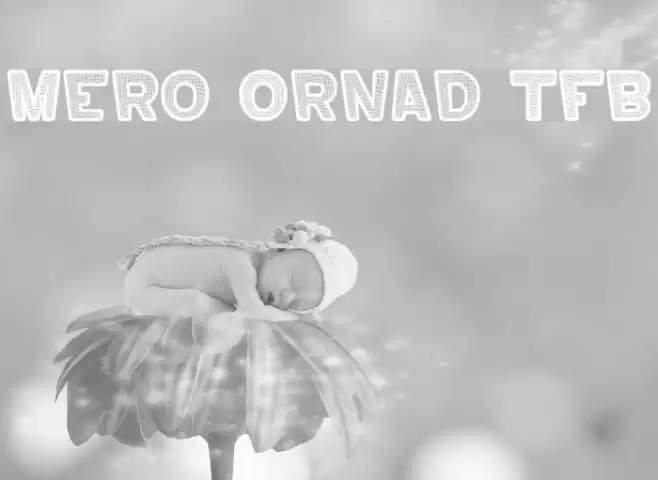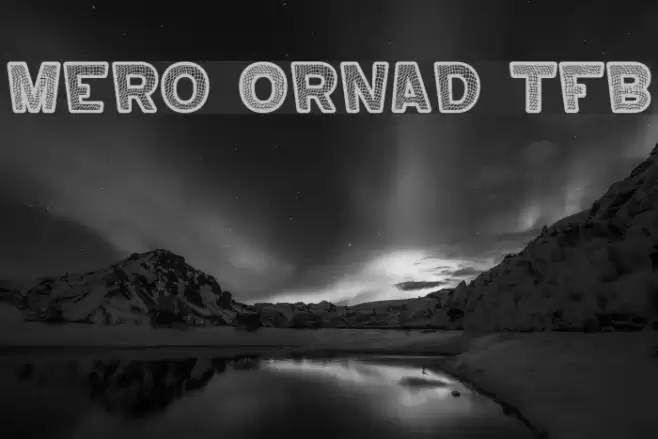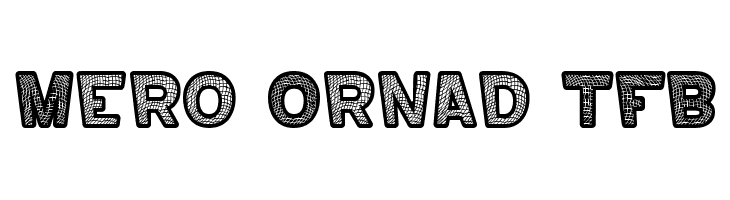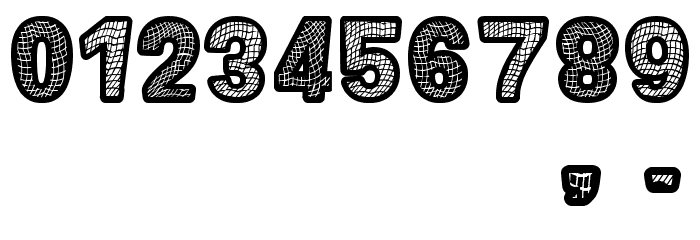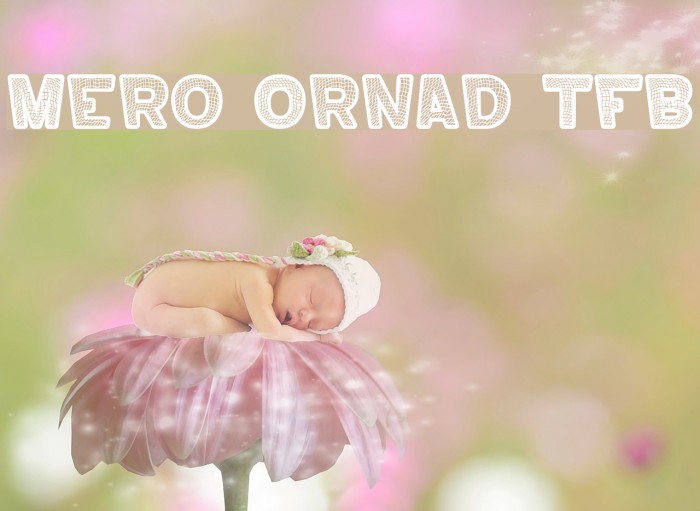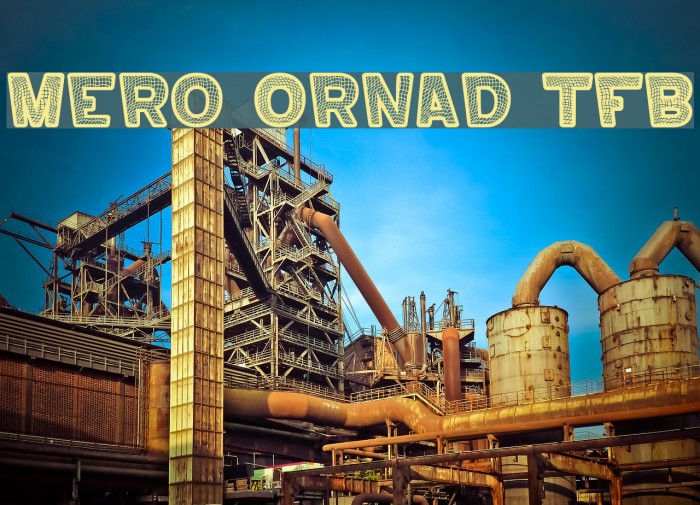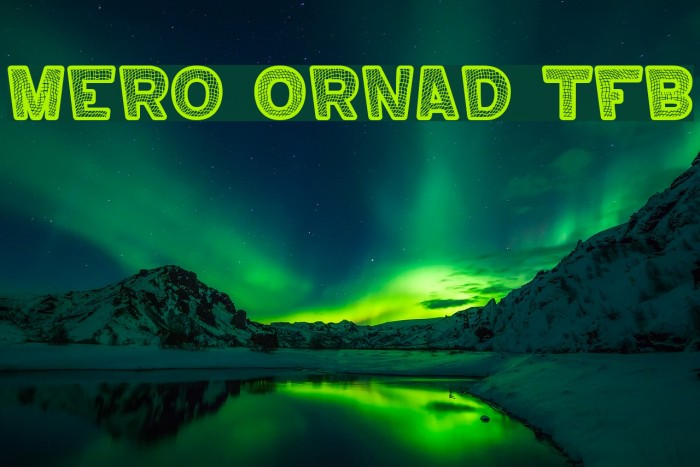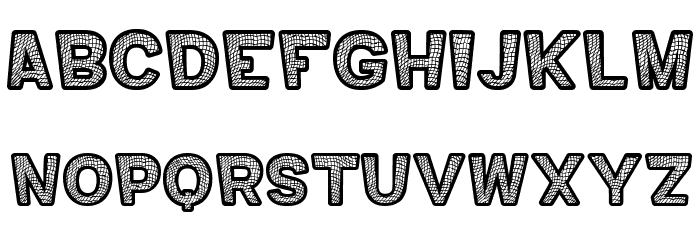
Mero Ornad TFB Font
Mero Ornad TFB Description
This font features a bold, decorative style with a unique textured pattern within each character. The letters are uppercase and have a playful, artistic flair, making them stand out with their intricate design. The numbers and special characters follow the same stylistic approach, ensuring consistency across all elements. The font's boldness and decorative nature make it ideal for eye-catching designs. The texture within the characters adds depth and a handcrafted feel, perfect for projects that require a touch of creativity and uniqueness.
A bold, decorative font with textured, artistic characters from Comic fonts.